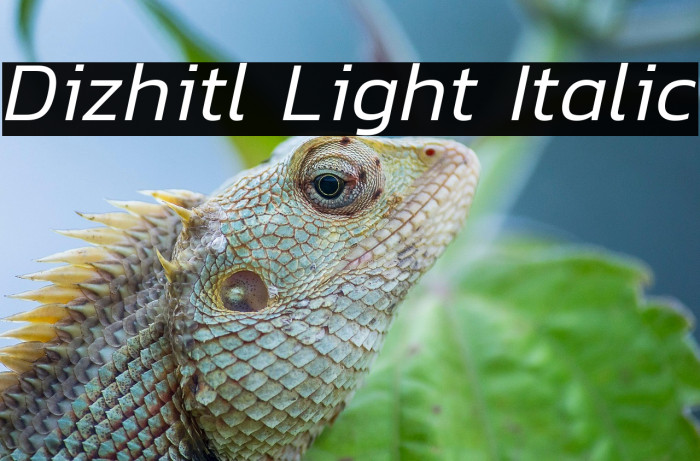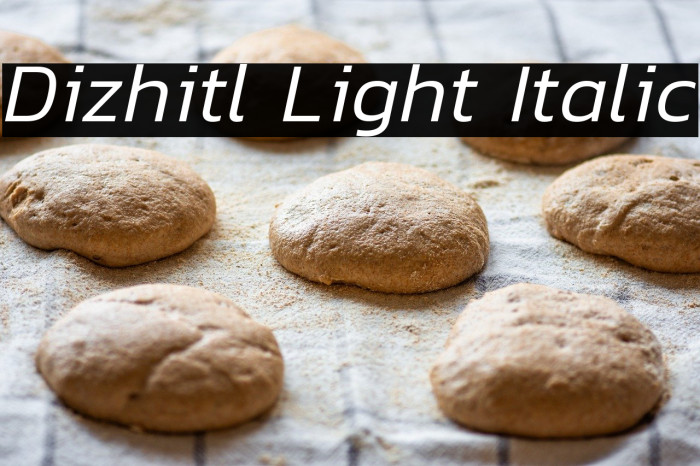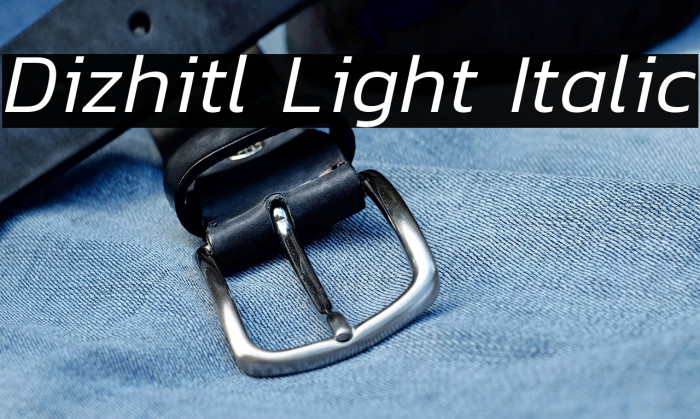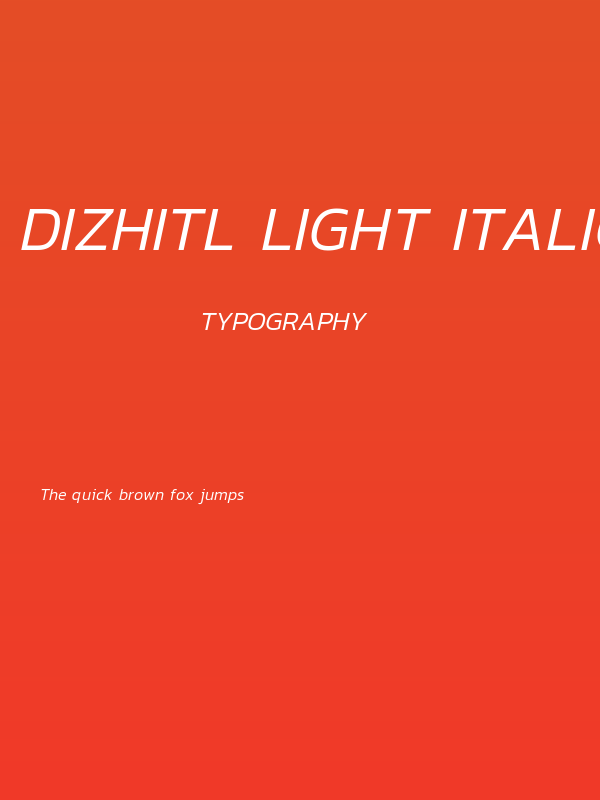
Dizhitl Light Italic Font
Dizhitl Light Italic Description
This font features a sleek, modern design with a slight italic slant, giving it a dynamic and forward-moving appearance. The characters are clean and well-defined, with a consistent stroke width that maintains a sense of uniformity across both uppercase and lowercase letters. The numerals are clear and easy to read, while the special characters are distinct and well-integrated into the overall design. The font's light weight contributes to its elegant and sophisticated look, making it suitable for a variety of applications where a contemporary and stylish aesthetic is desired.
Proposed ProjectsIdeal for branding, advertising, and editorial design projects that require a modern and sophisticated touch.